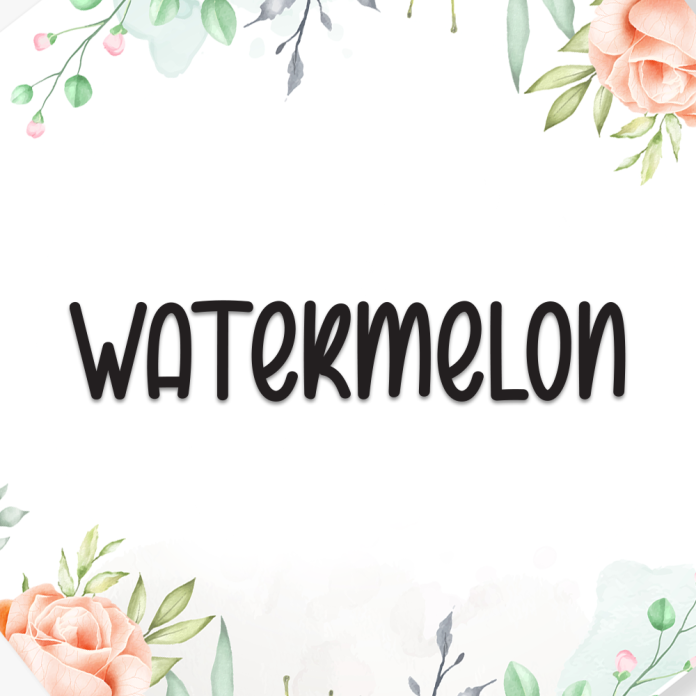
Watermelon is a fresh and vibrant display font that captures the sweet, playful essence of summer. With bold curves and a bouncy rhythm, this font is bursting with energy—just like a slice of your favorite fruit on a sunny day!
Perfect for summer-themed designs, food packaging, party invitations, kids’ merchandise, and bold branding, Watermelon brings flavor and fun to any creative project.
Bright and playful display style
Rounded, bold letterforms with a juicy feel
Ideal for summer events, food labels, kids' graphics, and festive branding
Make your designs pop with Watermelon, the display font that’s as fun and fresh as summertime itself.